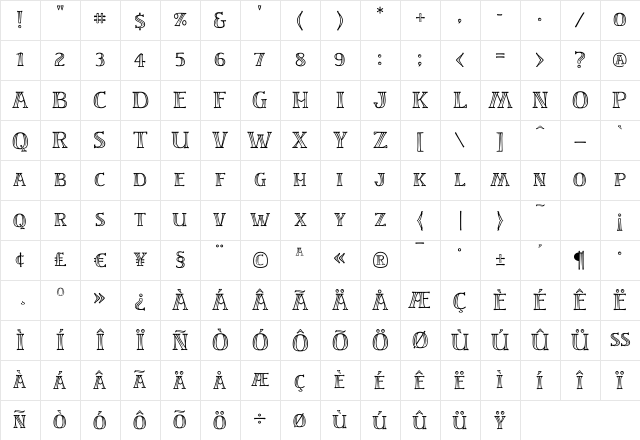
ZebraSmall Caps Regular Free Font
ZebraSmall Caps Regular
Design Context for ZebraSmall Caps
ZebraSmall Caps is a composed and adaptable typeface that performs quietly and consistently across a wide range of design contexts.